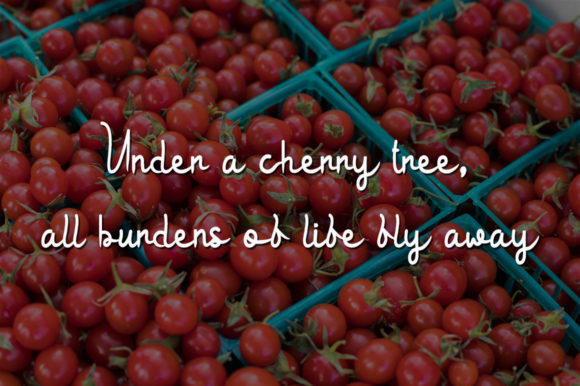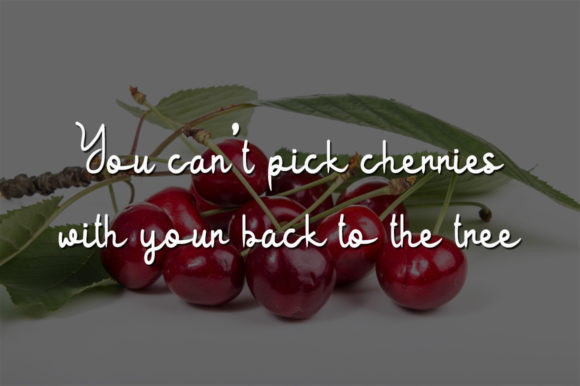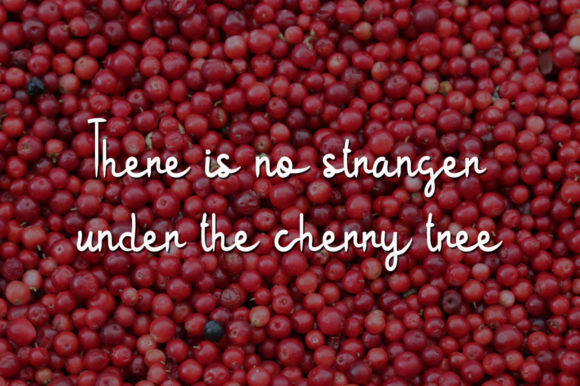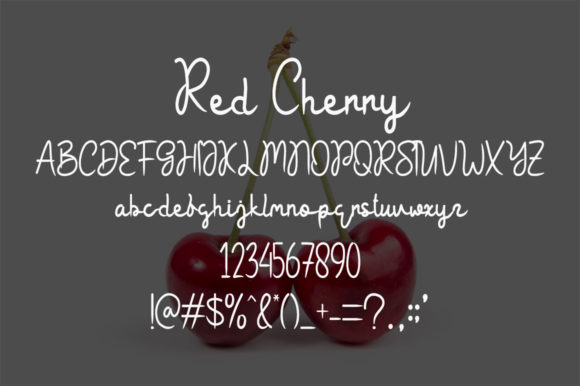
Introduction to Red Cherry Font
Have you ever stumbled upon a design element that sparks an idea and sets your creative juices flowing? For many designers, that moment is when they discover the perfect font to elevate their project. And for those in the know, the Red Cherry Font is a treasured find. This stunning handwritten font has been a game-changer for designers seeking a high-quality, elegant look for their designs.
Whether you’re working on a creative project, designing a logo, or crafting a visually appealing advertisement, the Red Cherry Font is an invaluable resource. Its delicate, well-rounded letters make it perfect for creating eye-catching designs with a transparent background. And the best part? This fantastic font is available for a free download, making it a must-have in every designer’s toolkit.
With its incredibly versatile style, the Red Cherry Font is a valuable addition to any design arsenal. Its unique charm will undoubtedly make your designs stand out from the crowd, and its ease of use makes it accessible to designers of all skill levels. So why not give it a try and fall in love with the Red Cherry Font’s magic?
Key Features of Red Cherry Font
- Unique, hand-drawn design with a bold and playful style
- Includes a comprehensive character set with uppercase and lowercase letters, numbers, and punctuation marks
Honest Review: Red Cherry Font
I recently stumbled upon the Red Cherry Font, a high-quality design resource that caught my attention. As a designer, I’m always on the lookout for unique and creative fonts to elevate my projects.
- The font’s design is truly unique and catches the eye. It’s perfect for adding a pop of color to your creative project.
- The font may not be suitable for all types of projects, especially those requiring a more formal or traditional look.
- The font’s bold and playful nature may be overwhelming in some cases.
Overall, I’m impressed with the Red Cherry Font’s creativity and versatility. It’s a valuable addition to any designer’s toolkit, and I’m excited to see how it can be used in various projects. With its high-quality design and transparent background, it’s a great resource for designers looking to add some flair to their work.
Tips for Getting the Most Out of Red Cherry Font
For a transparent background, use a solid color behind the text to create a seamless effect. Experiment with different font sizes and styles to create a visually appealing design.
The Red Cherry Font is perfect for creating eye-catching social media posts, graphics, and presentations. It’s also great for adding a touch of elegance to your website or blog.